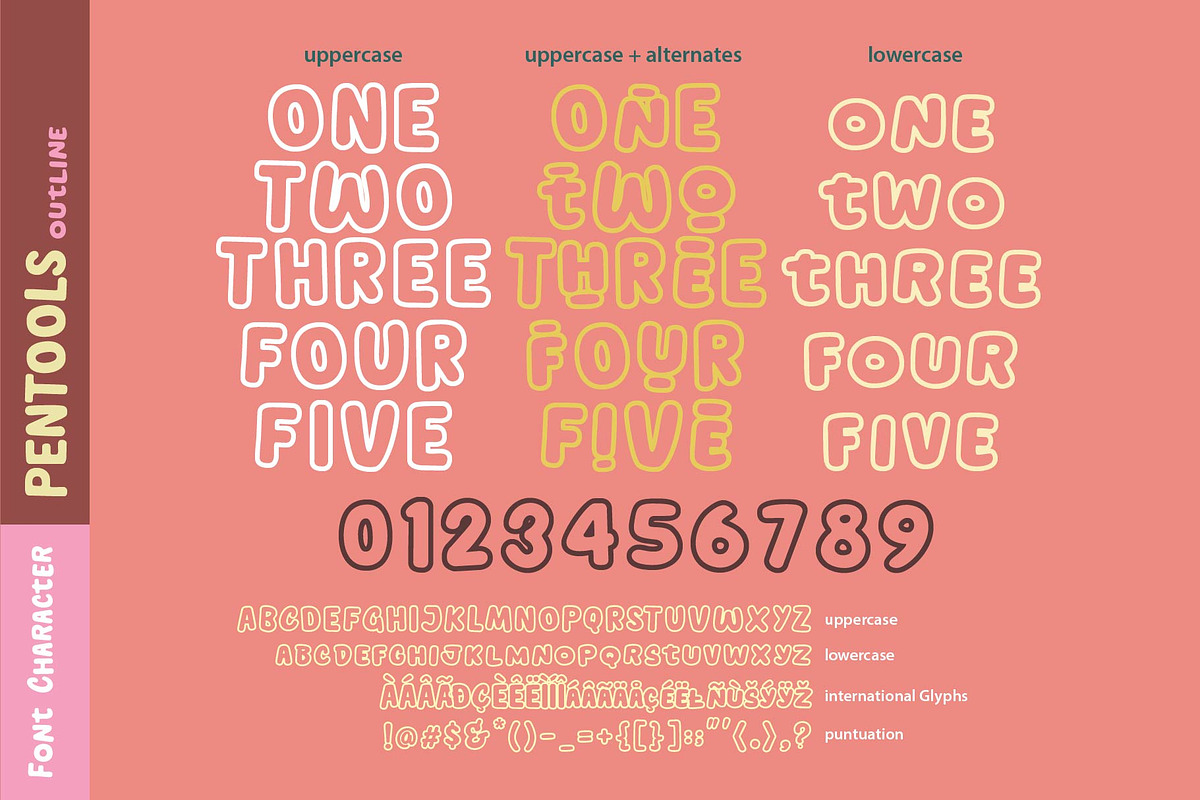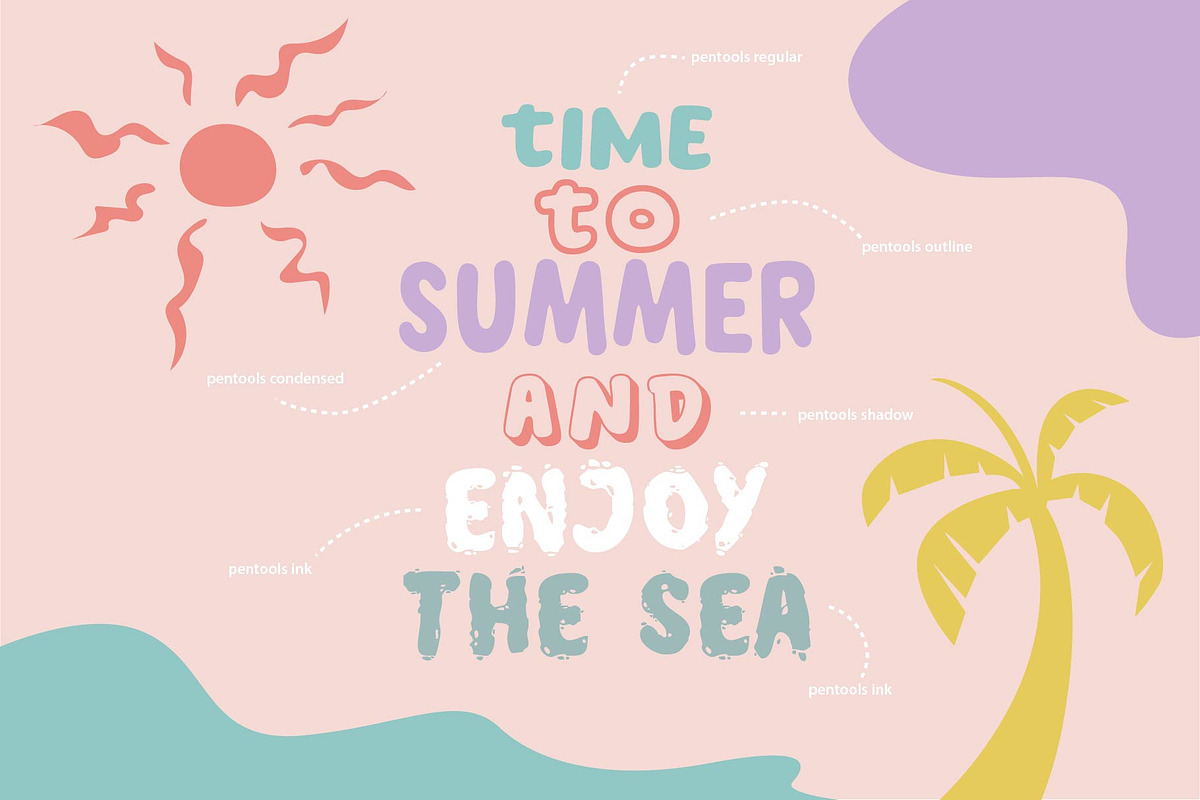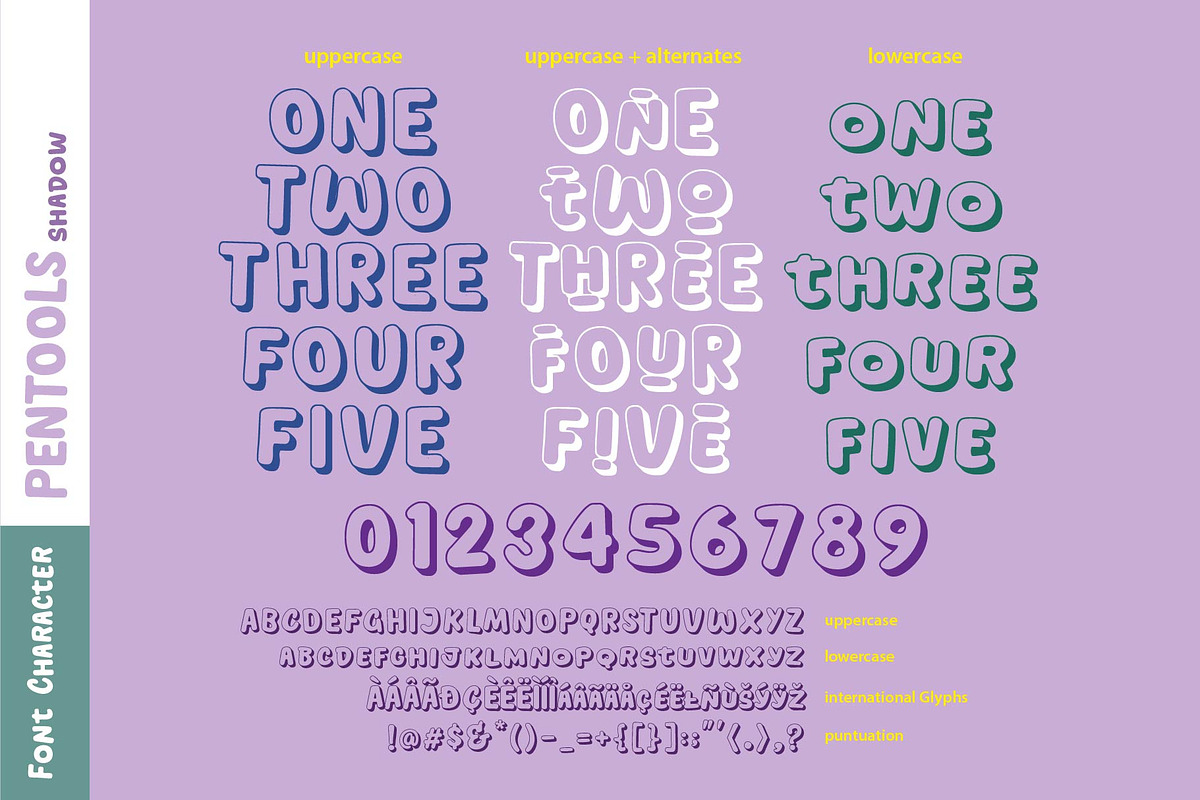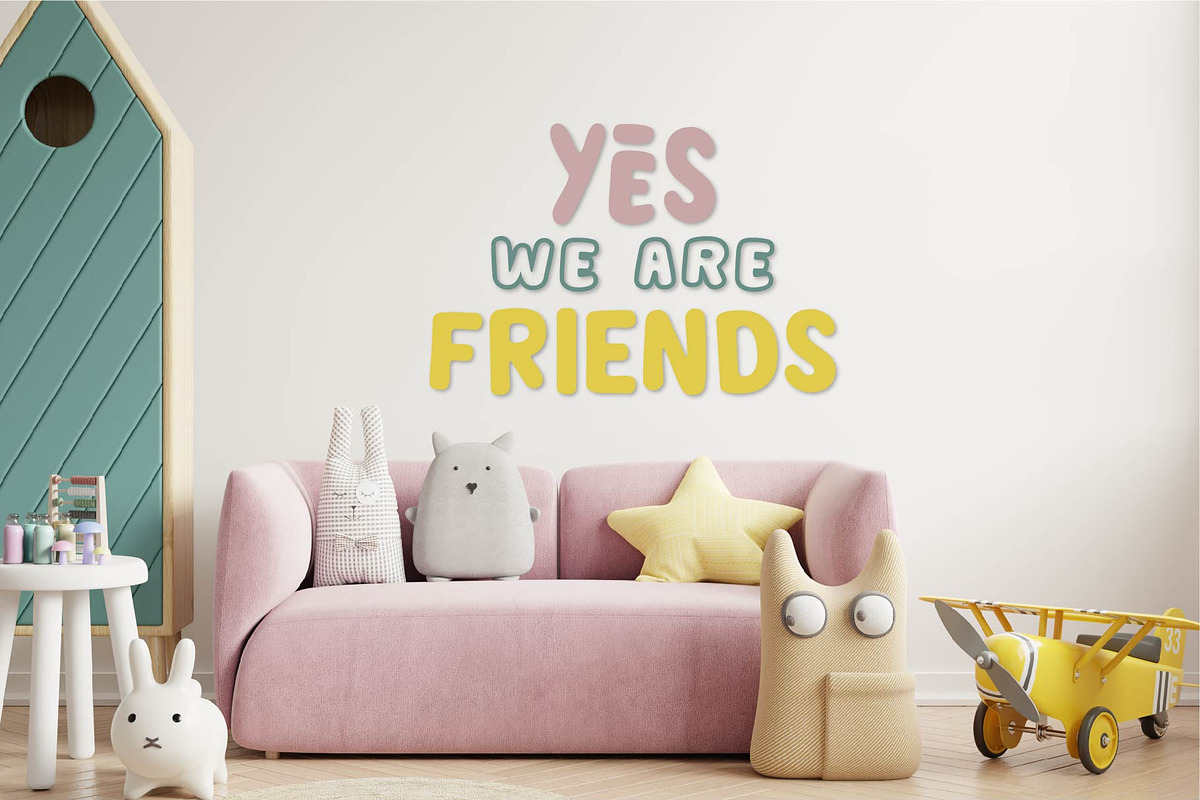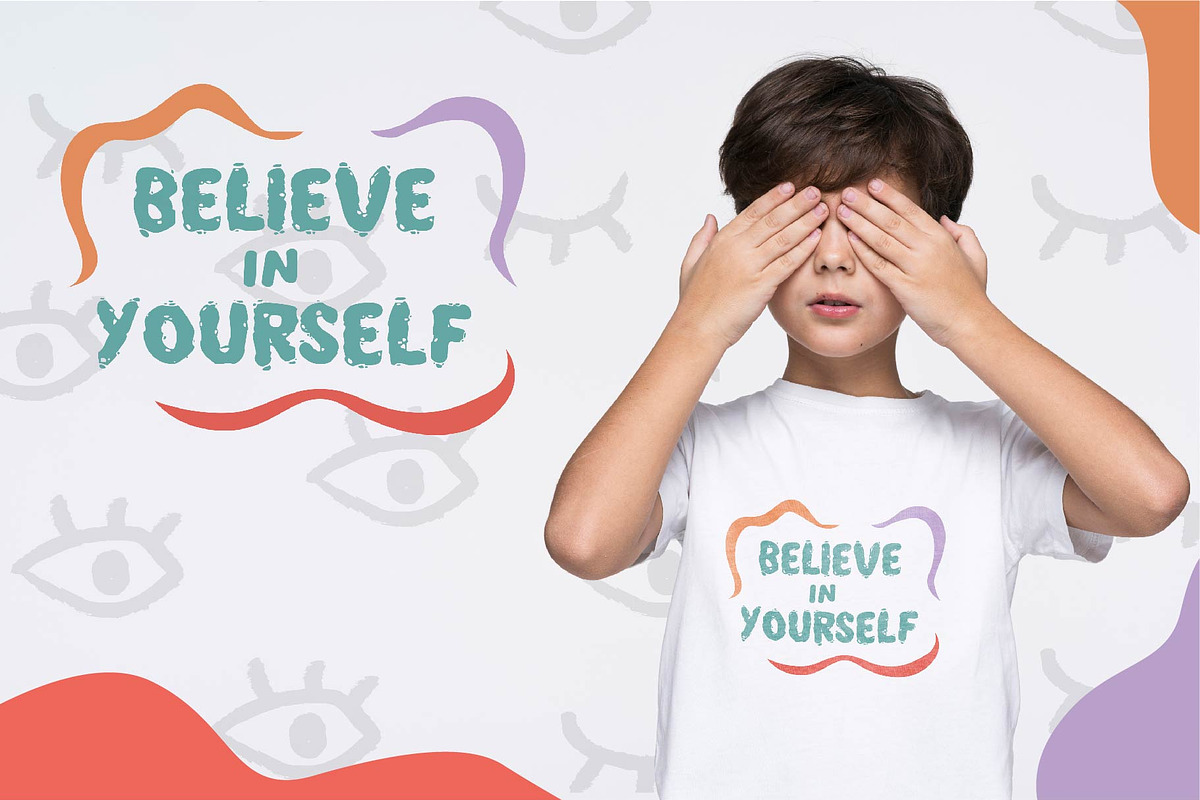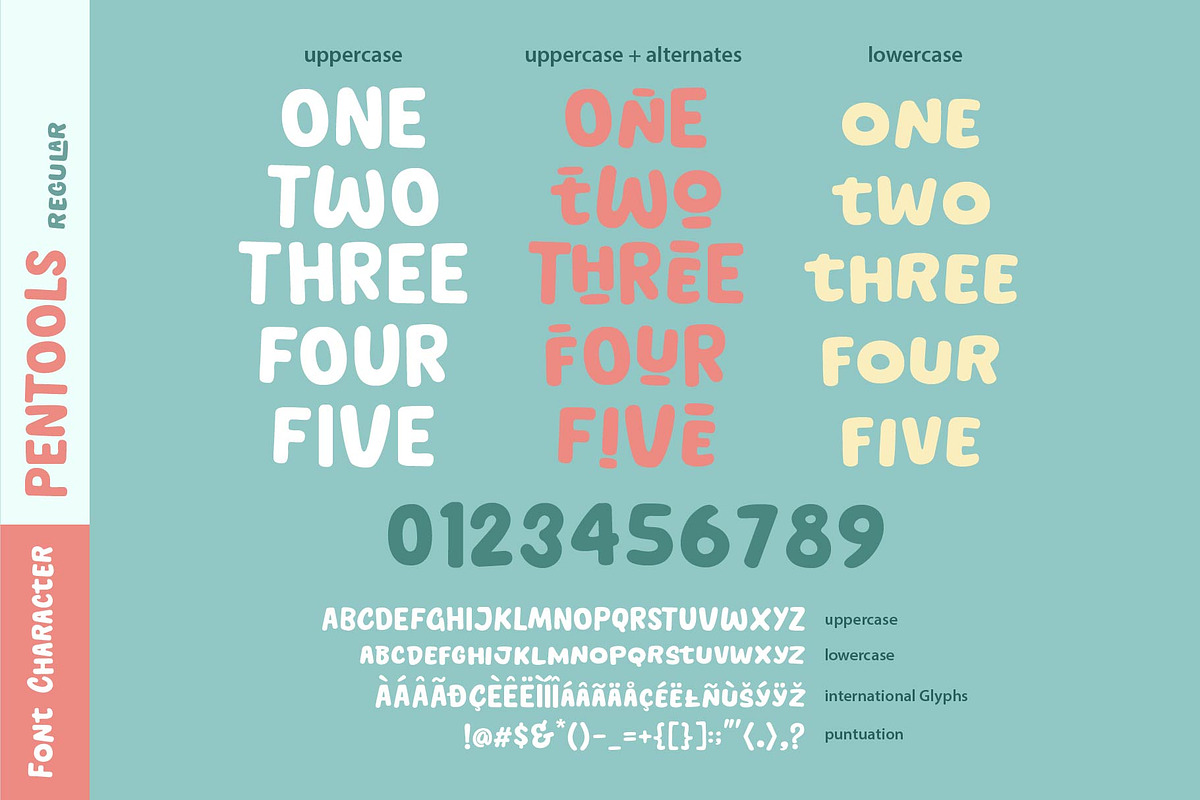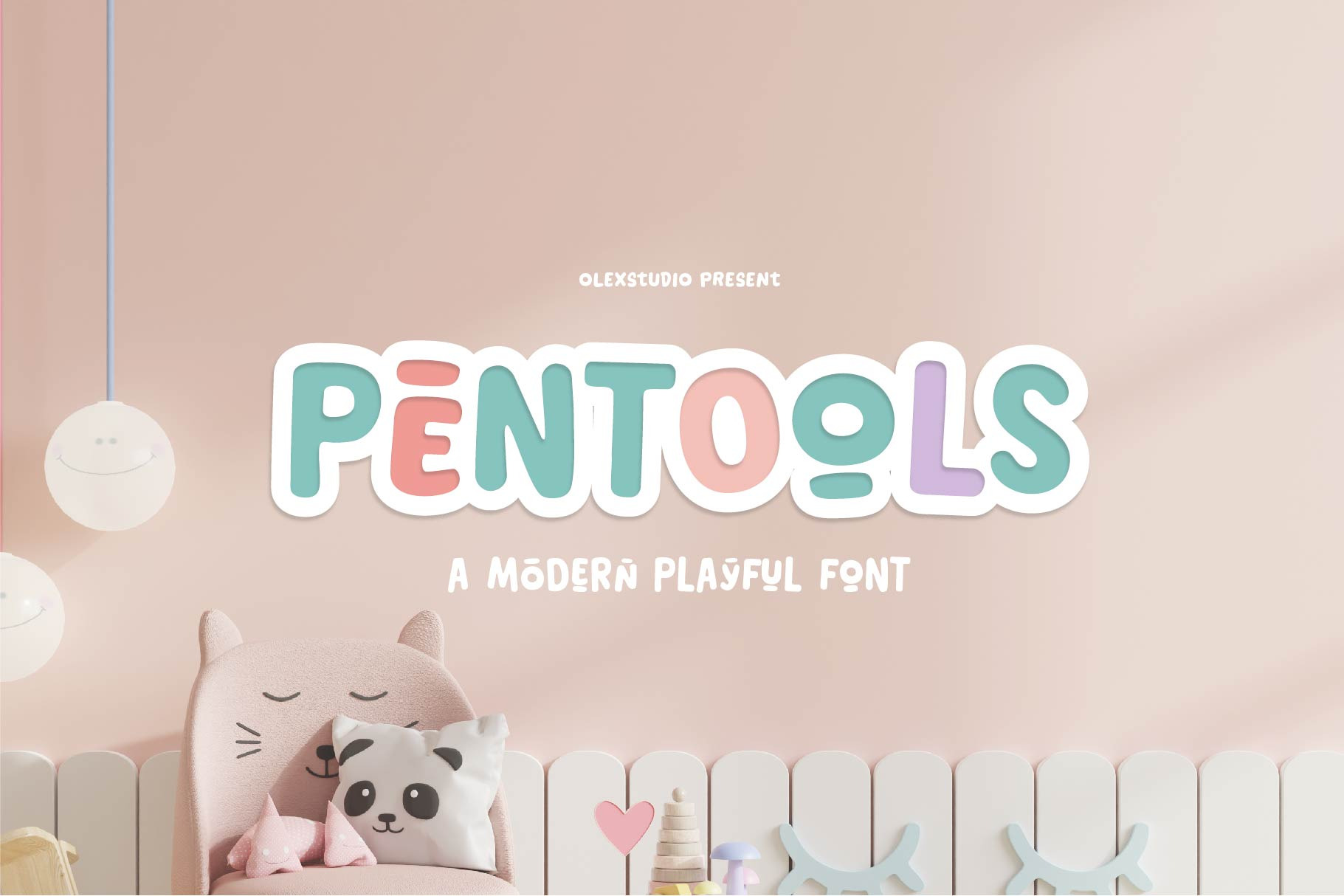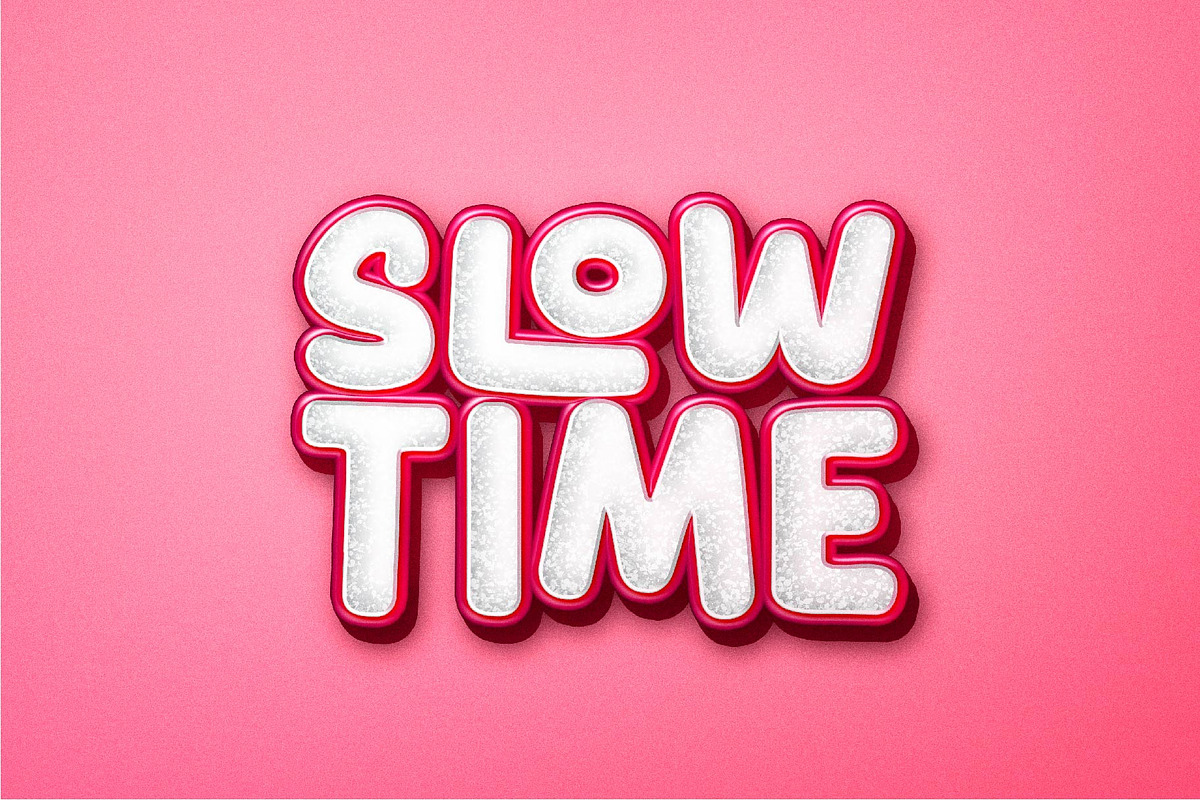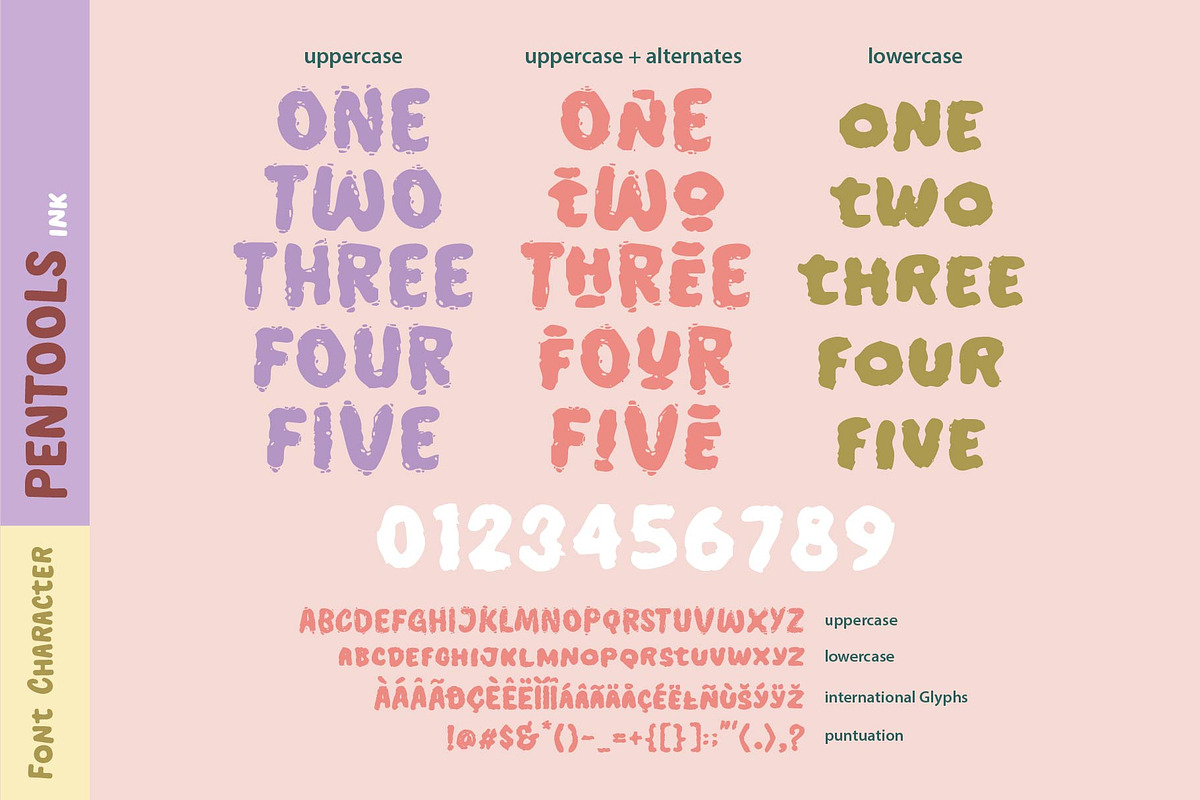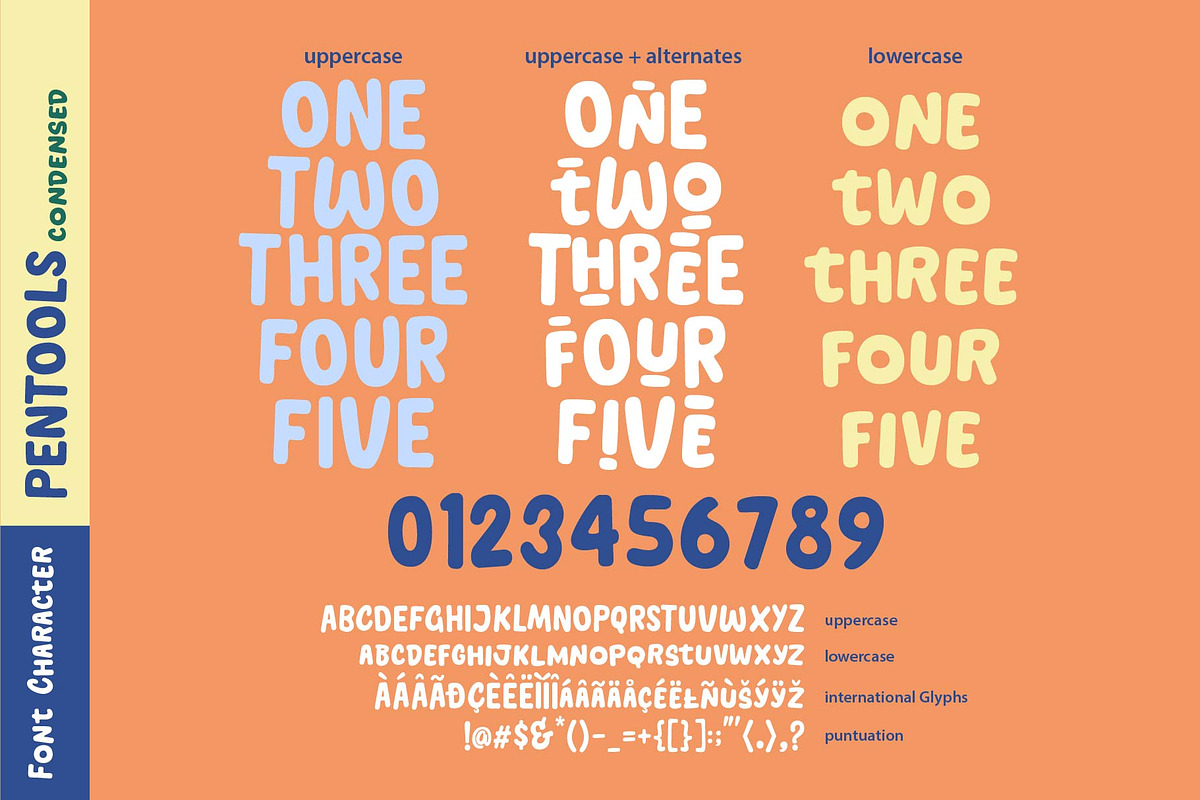
PENTOOLS - Display Font
PENTOOLS - Display Font will look gorgeous on all your designs, invitation, poster design, book design, branding materials, logo's, t-shirt and all project design other.
PENTOOLS - Display Font contains standard characters, All character is a Uppercase, Alternates Glyphs, numbers, punctuation, ligatures and international glyphs. You will receive OTF, TTF files & WEBFONT.
- Pentools Regular
- Pentools Ink
- Pentools Condensed
- Pentools Shadow
- Pentools Outline